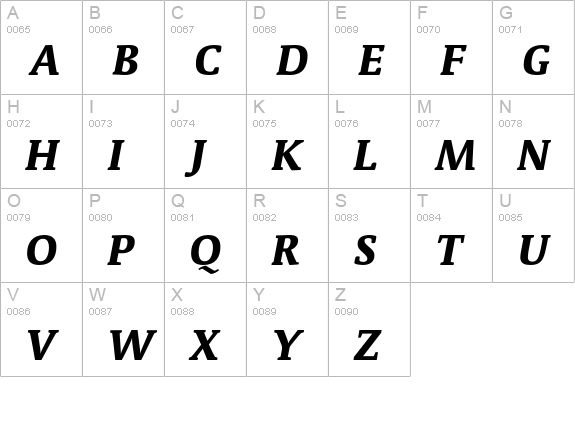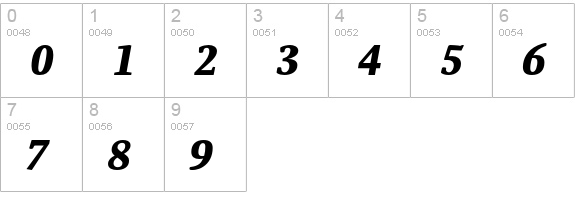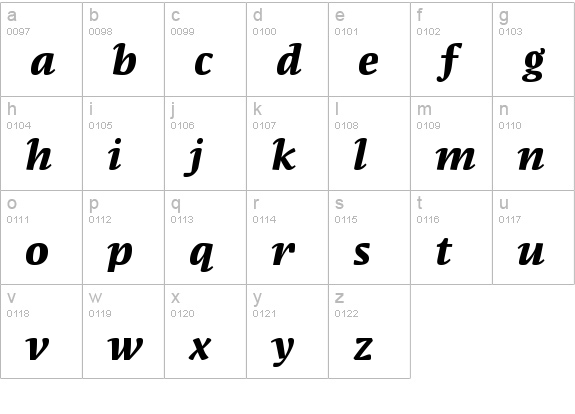
Introducing ParableLF-ExtraBoldItalic, a stunning font that effortlessly combines boldness and elegance. This unique typeface is the perfect choice for those seeking to make a powerful statement with their designs. Its distinctive italicized form adds a touch of sophistication, while its extra bold weight commands attention and demands to be noticed. ParableLF-ExtraBoldItalic is a font that truly stands out from the crowd. Its clean lines and impeccable curves create a harmonious balance, making it a versatile choice for a wide range of design projects. Whether you are designing a logo, a headline, or even a poster, this font will effortlessly elevate your design to new heights. What sets ParableLF-ExtraBoldItalic apart is not just its remarkable aesthetics, but also its accessibility. We believe that creativity should be free and accessible to all, which is why we are delighted to offer this font for free download at FontsMarket.com. Now, you can add a touch of distinction and elegance to your designs without breaking the bank. Downloading ParableLF-ExtraBoldItalic is a breeze. Simply visit FontsMarket.com, and within a few clicks, you'll have this magnificent font at your fingertips. The ease of access ensures that you can start using this font in your projects right away, saving you valuable time and effort. So, why wait? Discover the power of ParableLF-ExtraBoldItalic and unleash your creativity like never before. Download this font today and let it transform your designs into captivating masterpieces. Remember, it's not just a font, it's a statement – and it's freely available for you to embrace at FontsMarket.com.